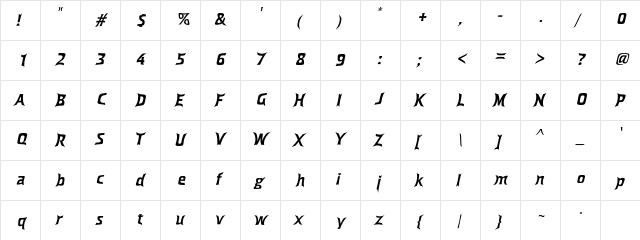
Dross05Slanted Regular
Design Context for Dross05Slanted Typeface
Dross05Slanted is a composed and adaptable typeface that performs quietly and consistently across a wide range of design contexts. The slanted form adds forward momentum and visual energy.
Pro Tip: Try Dross05Slanted for annotation and caption copy alongside an upright companion — the contrast in angle creates a dynamic but ordered typographic system.